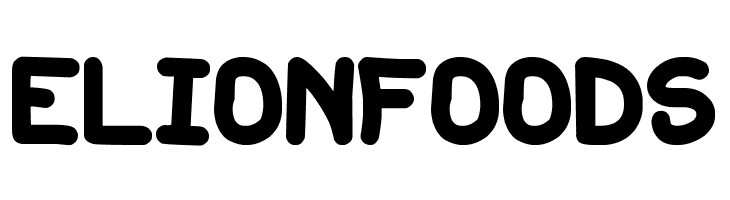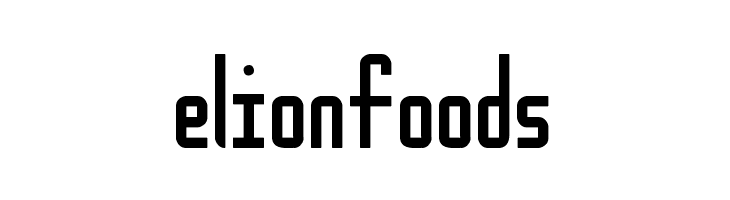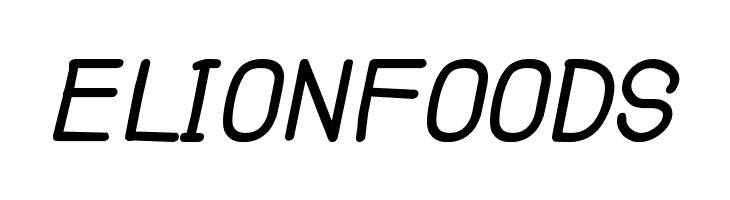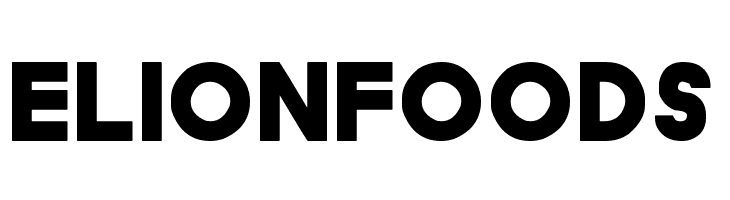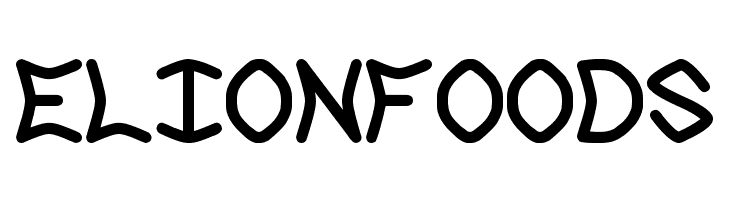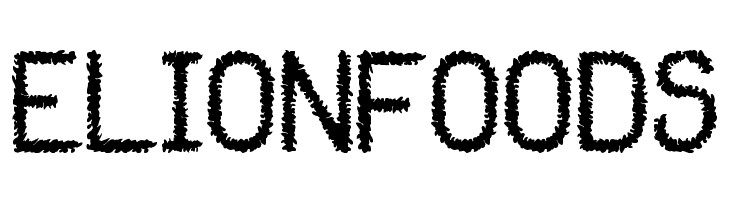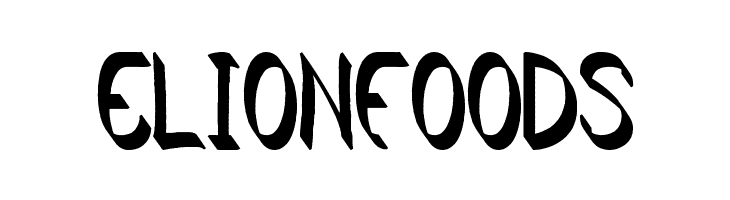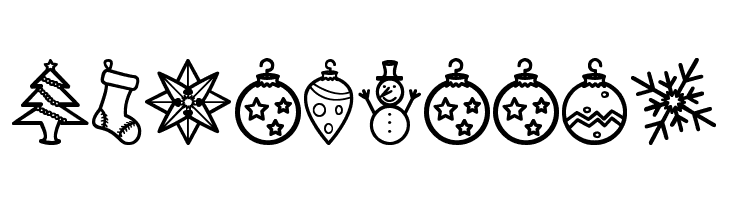
A bold, playful font with rounded edges and a whimsical style.
A playful, textured font with fuzzy edges and a dynamic appearance.
A bold, hand-drawn font with an artistic and dynamic style.
A decorative font with Christmas-themed icons for festive projects.
A playful, hand-drawn font with uneven strokes and a whimsical style.
A bold, distressed font with a rugged, vintage appearance.
A bold, playful font with rounded, thick letterforms and a friendly vibe.
A bold, geometric font with a modern and minimalistic style.
A dynamic, slanted handwritten font with medium contrast and excellent readability.
A bold, geometric font with a modern and assertive style.